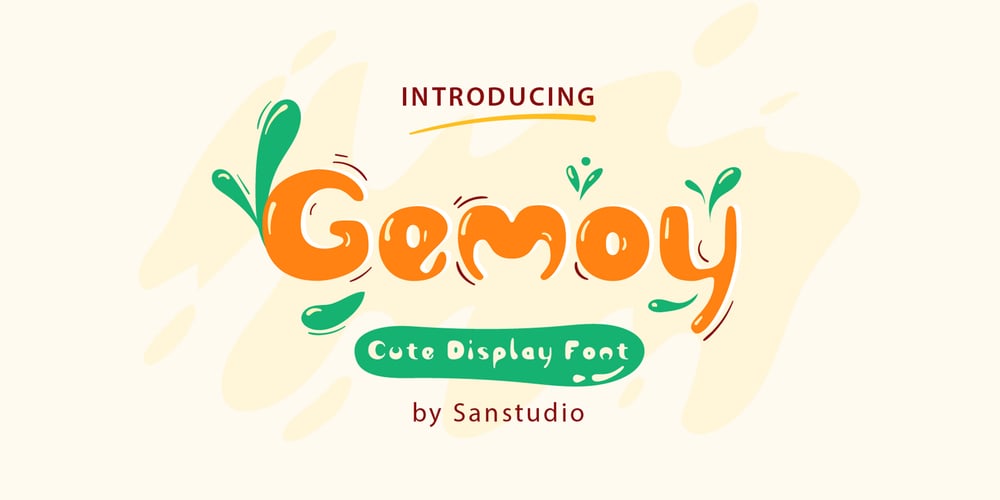
Gemoy Font Family was designed by Wahyu Azizi and published by San Studio. Gemoy contains 1 styles and family package options. A cute and playful display font is good to go on your projects such as poster design, merchandise, quotes, t-shirt designs, social media posts, and more.